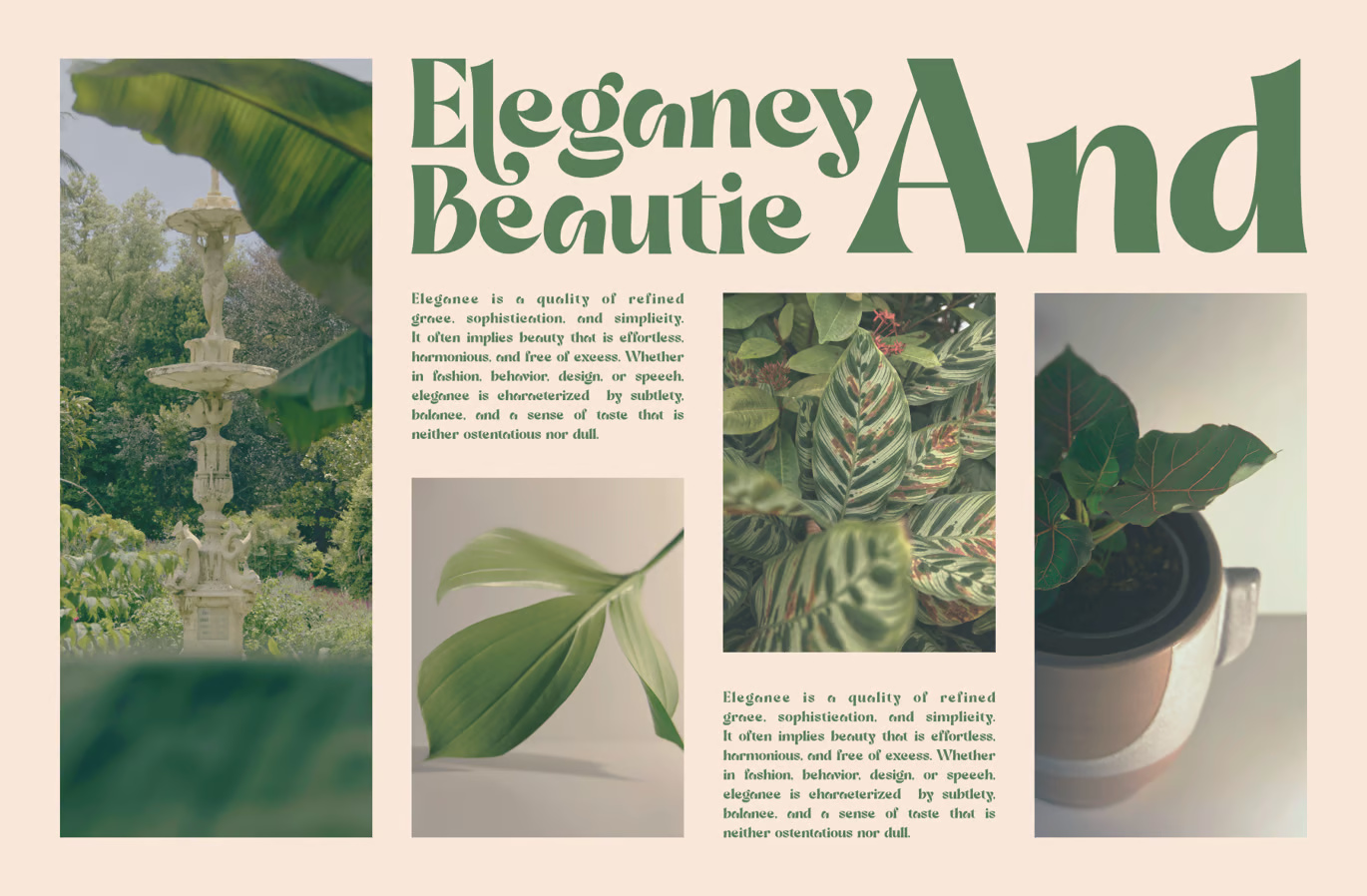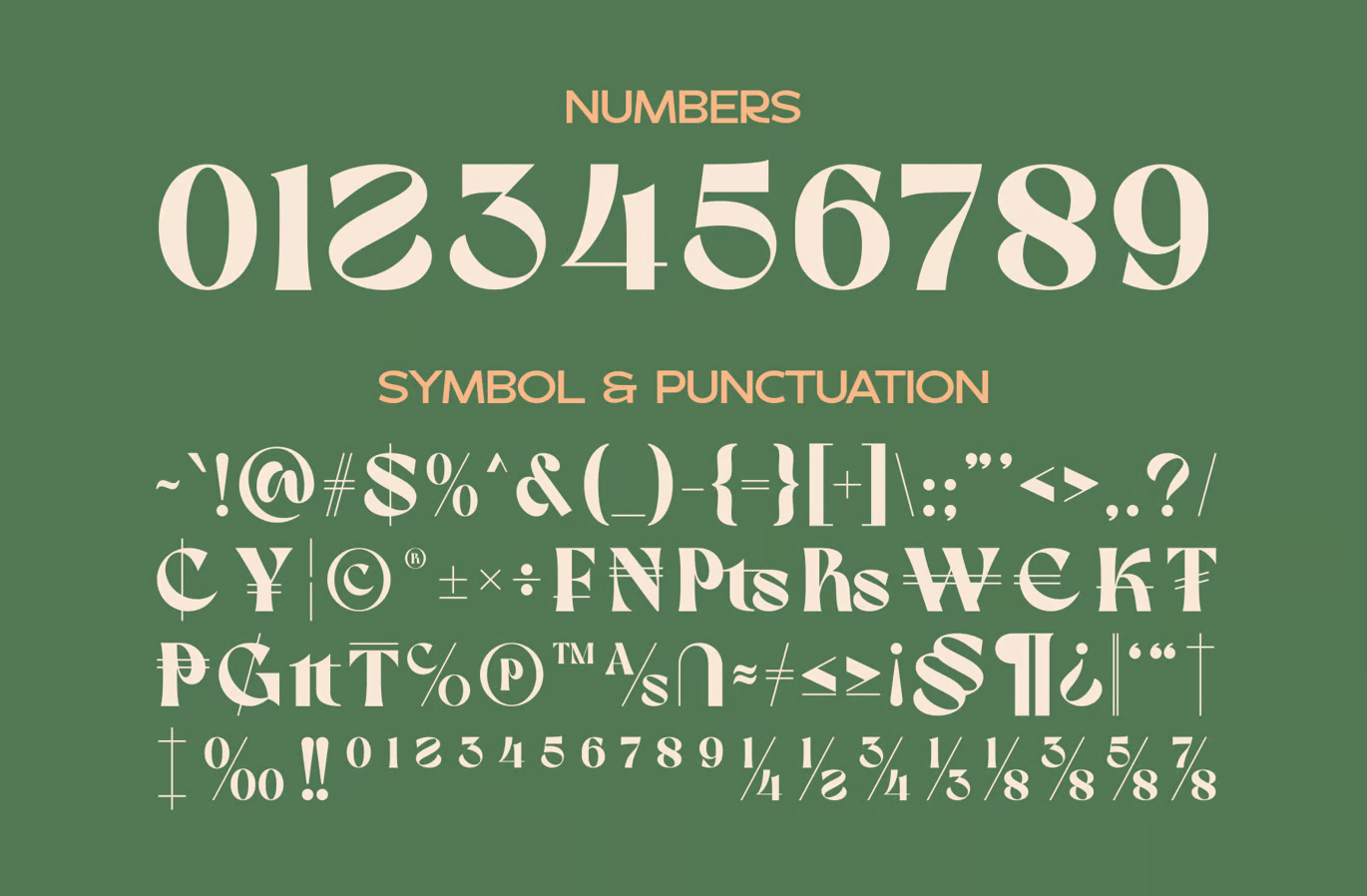
Dilley Helia Retro Typeface
Dilley Helia is a beautifully crafted serif typeface that brings a perfect blend of retro charm and modern elegance. Designed with a balanced proportion of stroke thickness and fineness, this font creates visually appealing and highly readable typography.
Characterized by a bold contrast between thick and thin lines, Dilley Helia delivers a refined yet eye-catching aesthetic. Its timeless design makes it an excellent choice for branding, editorial layouts, posters, invitations, and any project that demands a touch of sophistication with a retro flair.
Dilley Helia – Serif Retro Typeface
Dilley Helia - Serif Retro Typeface